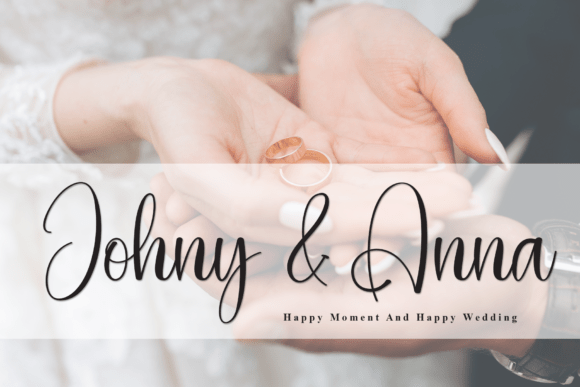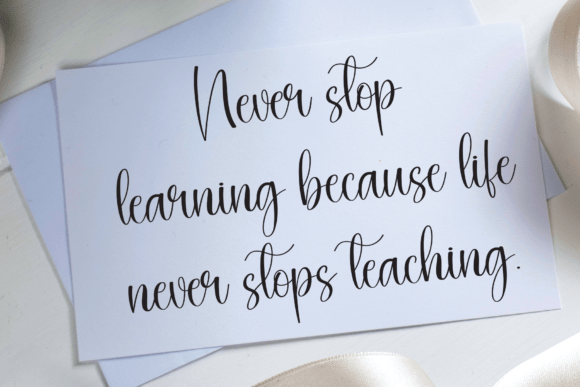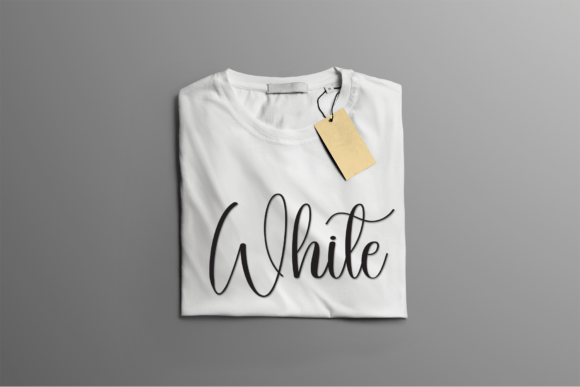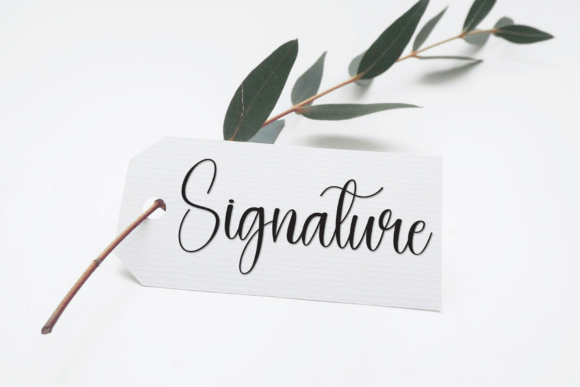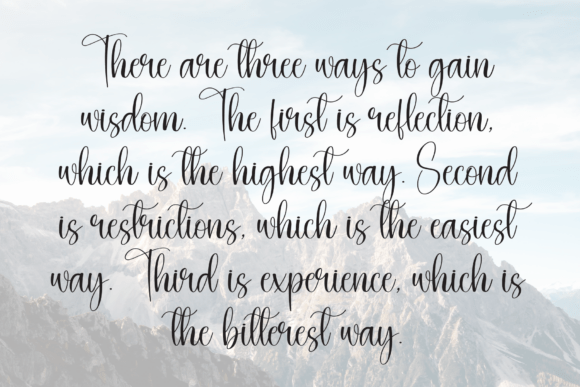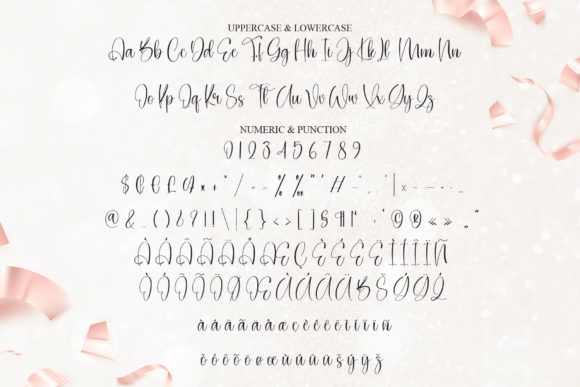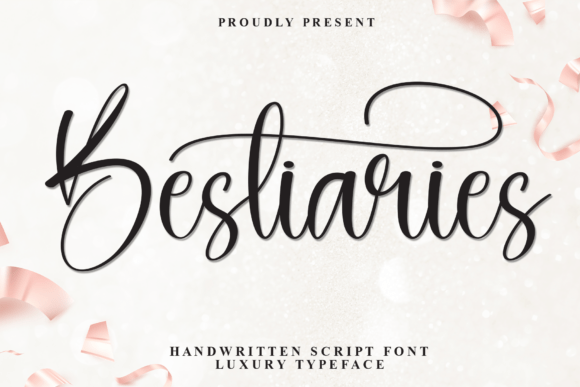
Introducing Bestiaries Font: Elevate Your Designs with Elegance and Playfulness
In the world of typography, a font can make or break the visual appeal of a design. For designers and crafters looking to add a touch of sophistication and whimsy to their projects, Bestiaries Font is an excellent choice. This stylish handwritten script font is designed to capture the essence of elegance and playfulness, making it perfect for a wide range of applications, from invitations and branding to social media and more.
The Characteristics of Bestiaries Font
Bestiaries Font boasts flowing curves and a natural rhythm that sets it apart from other script fonts. Its unique design brings a personal, charming touch to any project, making it ideal for designers who want to add a human element to their work. The font’s graceful design exudes warmth, sophistication, and creativity, making it perfect for projects that require a touch of elegance and whimsy.
What Makes Bestiaries Font Stand Out?
• Elegant and Playful: Bestiaries Font strikes the perfect balance between elegance and playfulness, making it suitable for a wide range of designs, from formal invitations to social media posts.
• Handwritten with Love: The font’s handwritten nature gives it a personal touch that is hard to replicate with generic fonts.
• Flowing Curves: The font’s flowing curves and natural rhythm create a sense of movement and energy, adding visual interest to any design.
• Versatile: Bestiaries Font can be used for a variety of projects, including invitations, branding, social media, and more.
Uses of Bestiaries Font
Bestiaries Font is a versatile font that can be used in a variety of contexts. Here are some ideas to get you started:
• Invitations: Add a touch of elegance and whimsy to your wedding invitations, birthday party invites, or baby shower announcements.
• Branding: Use Bestiaries Font to create a unique and memorable brand identity for your business or product.
• Social Media: Elevate your social media posts with a touch of sophistication and playfulness, making your content stand out in a crowded feed.
• Stationery: Create beautiful stationery, such as notebooks, journals, or greeting cards, with Bestiaries Font.
Tips for Using Bestiaries Font
To get the most out of Bestiaries Font, here are some tips to keep in mind:
• Pair with Other Fonts: Experiment with pairing Bestiaries Font with other fonts to create a unique and visually appealing combination.
• Adjust the Size: Play with different font sizes to create visual hierarchy and add emphasis to certain elements of your design.
• Experiment with Colors: Try out different colors to find the perfect match for your design and brand.
Bestiaries Font is a stylish and versatile handwritten script font that can elevate any design with its elegance and playfulness. With its flowing curves, natural rhythm, and charming touch, it’s perfect for designers and crafters looking to add a personal touch to their projects. Whether you’re creating invitations, branding, social media posts, or stationery, Bestiaries Font is an excellent choice. So why wait? Give Bestiaries Font a try today and see the difference it can make in your designs!